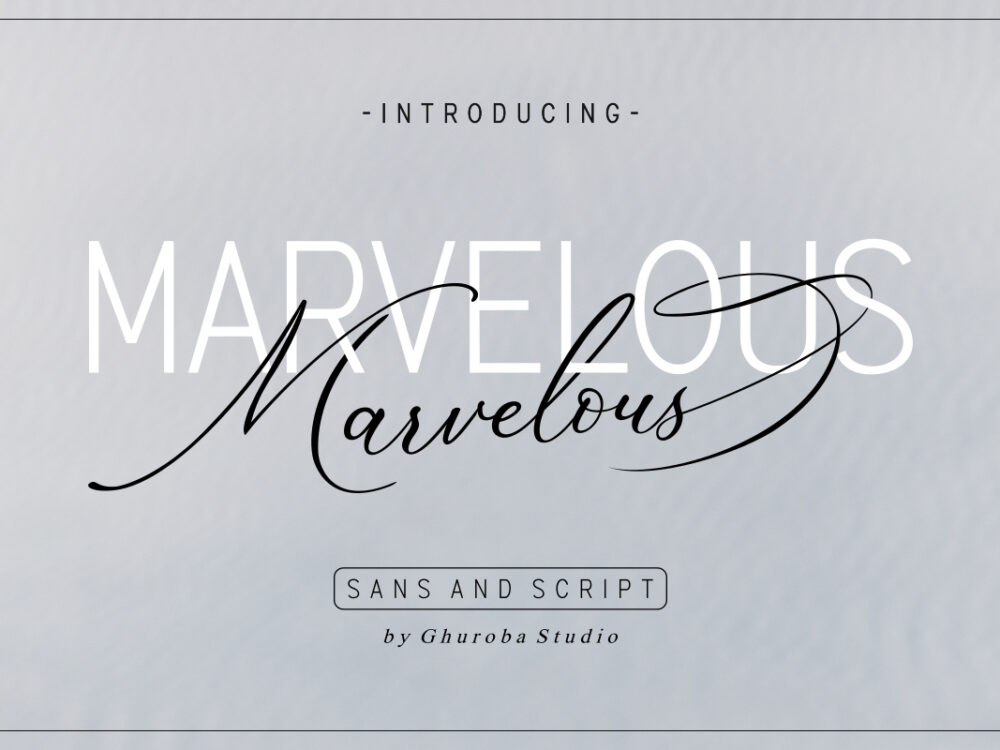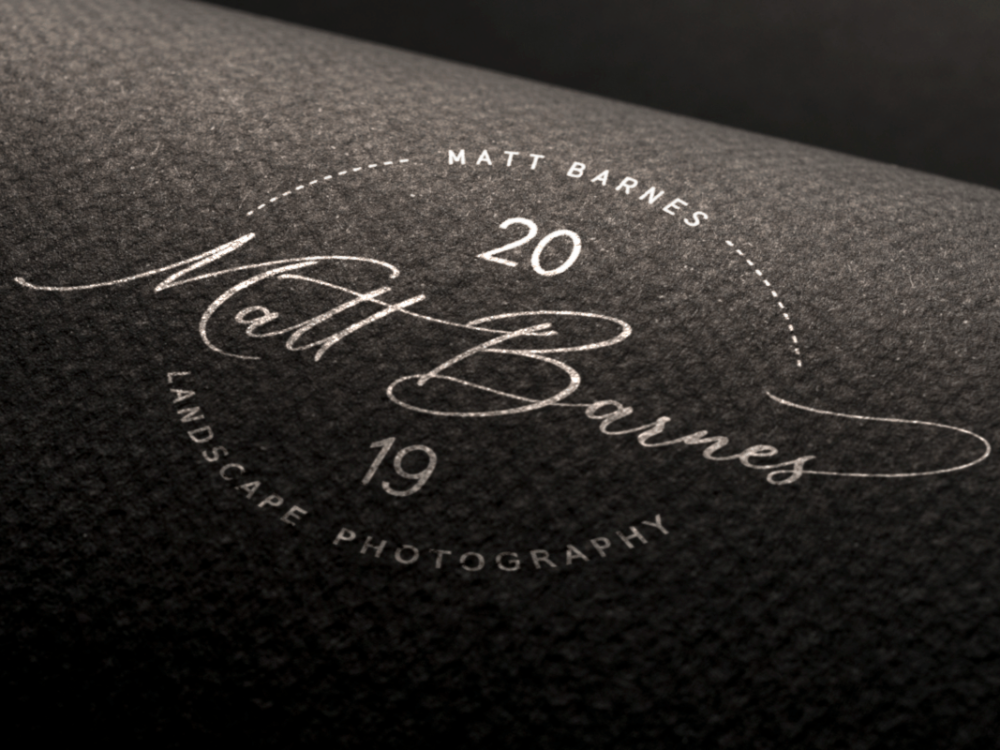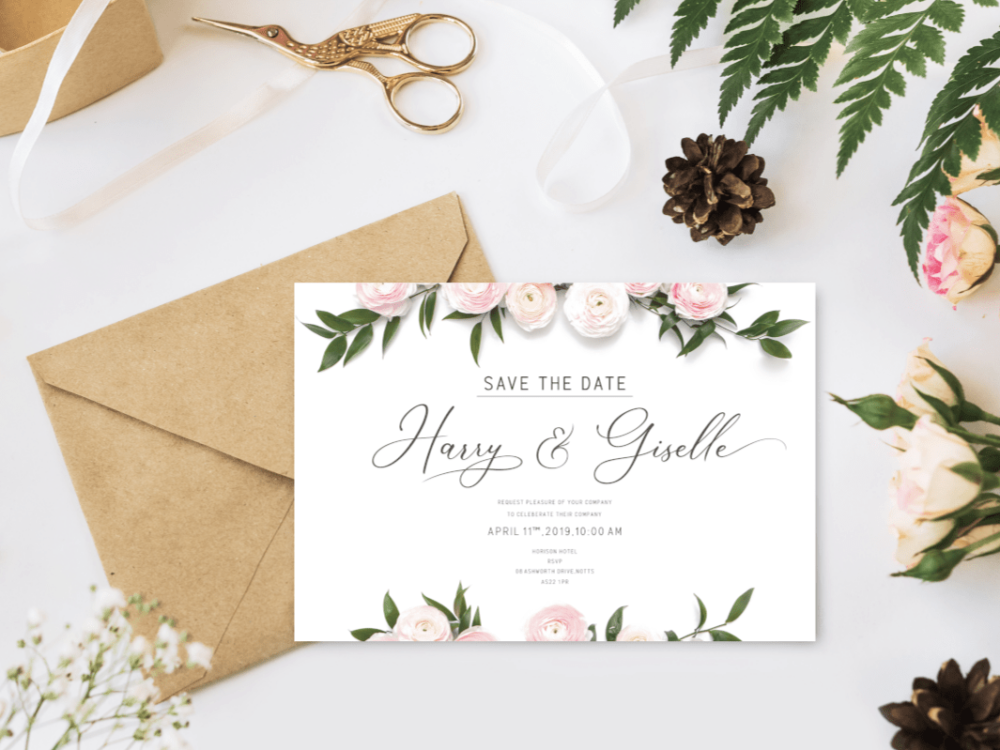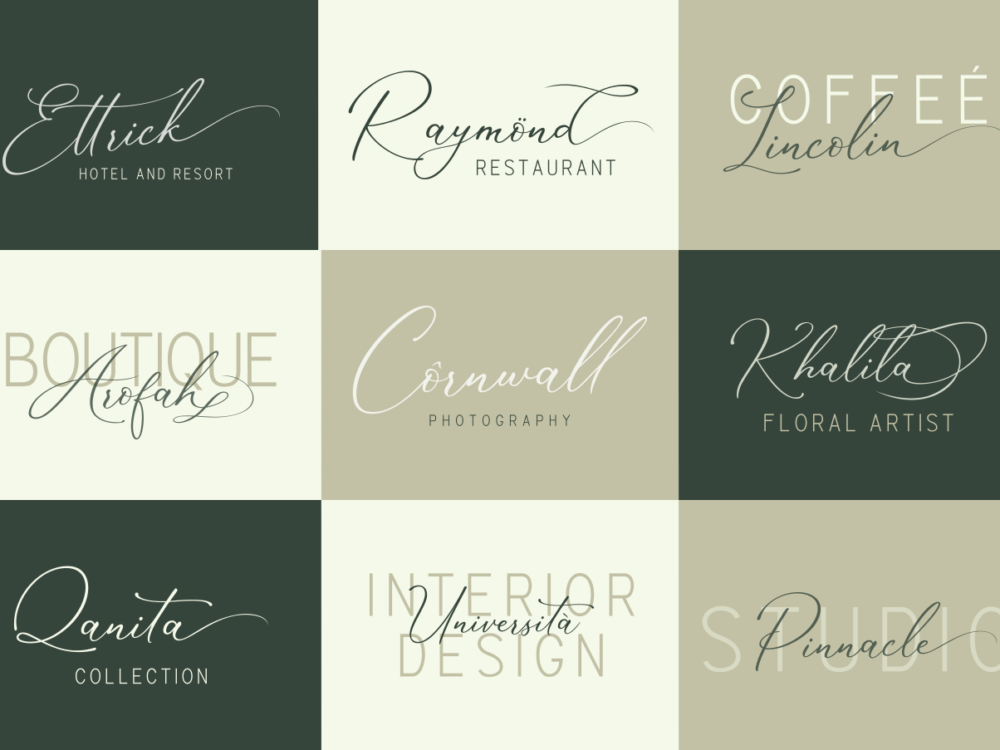
The Marvelous Font Duo
Free Calligraphic Script Font
Marvelous Font Duo is a couple of interesting fonts that complement each other. These fonts will amaze you with their elegance and modern style. The font is perfect for any design project you decide to create. You can use Marvelous to create invitations, business cards, logos, quotes, product packaging, and more. If you wish to access more features and use it for commercial work you can buy the full version.